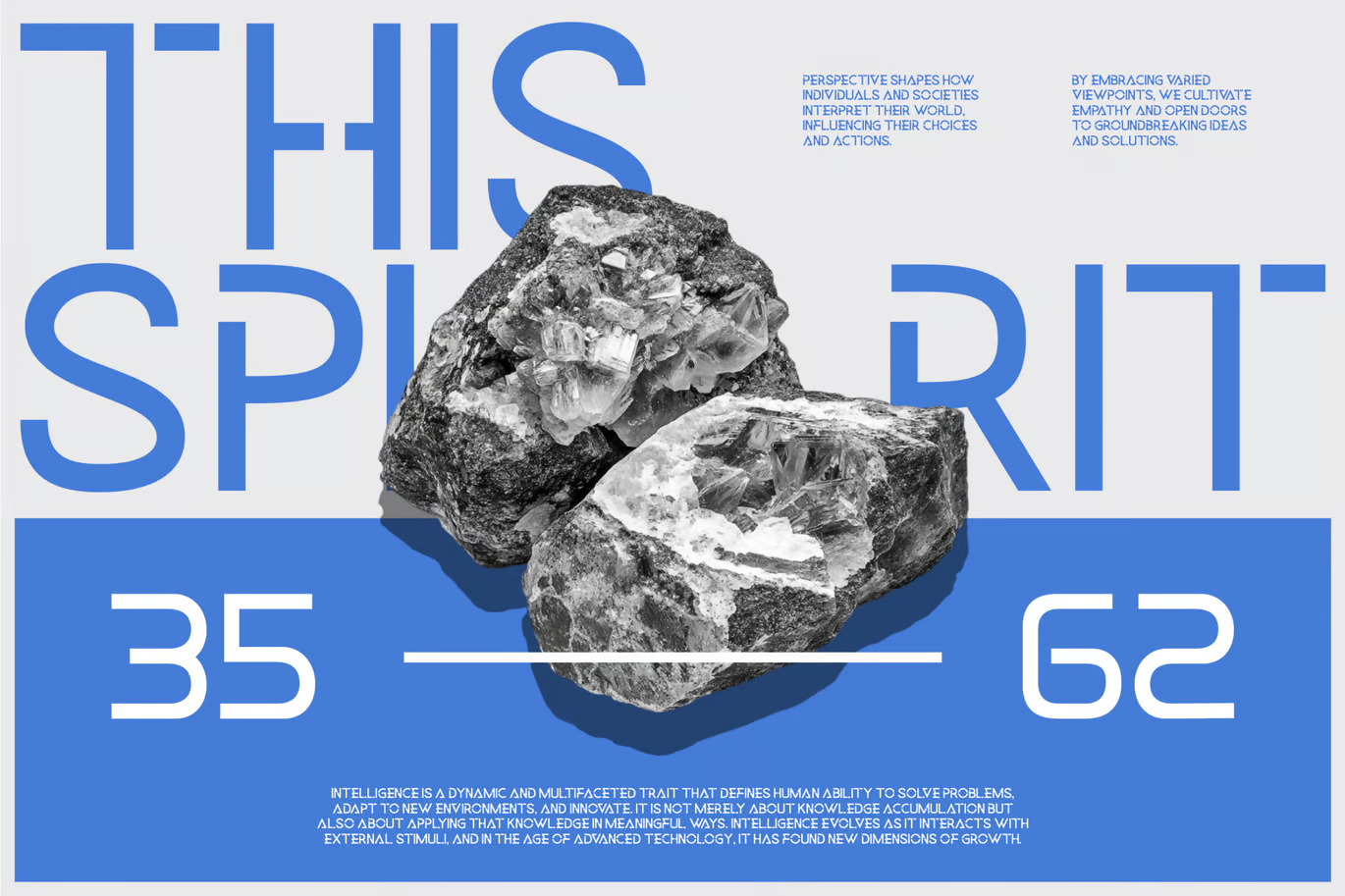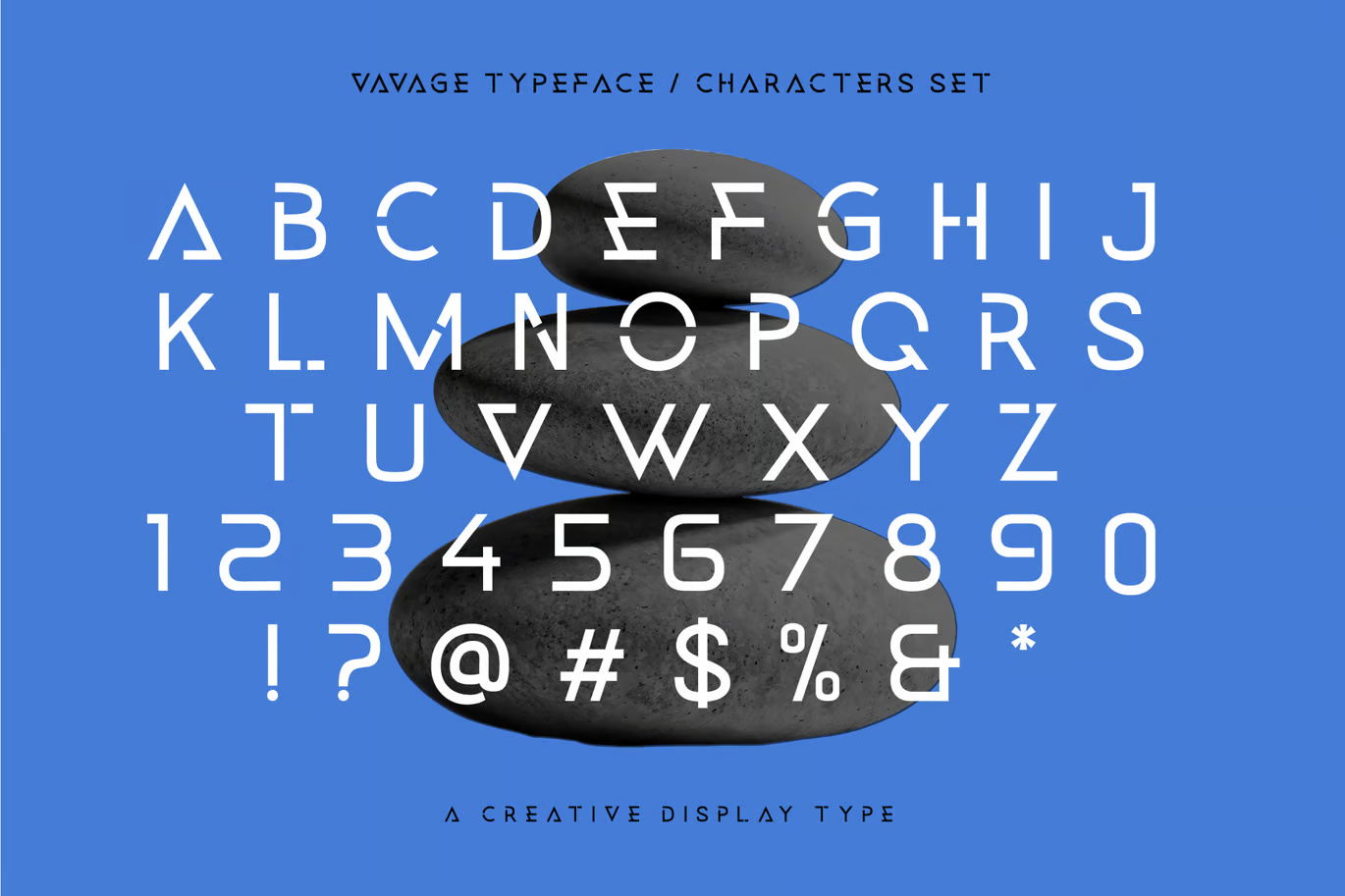
Vavage Creative Display Font
Elevate your designs with Vavage Creative Display Font, a modern font perfect for adding elegance and style to your projects. Whether it’s for quotes, logotypes, magazine headers, or more, this versatile typeface ensures your text stands out beautifully. Please note that this font is for personal use only, making it ideal for non-commercial projects and creative personal expressions.
Vavage Creative Sans Serif Display Font
Vavage Creative Display Font